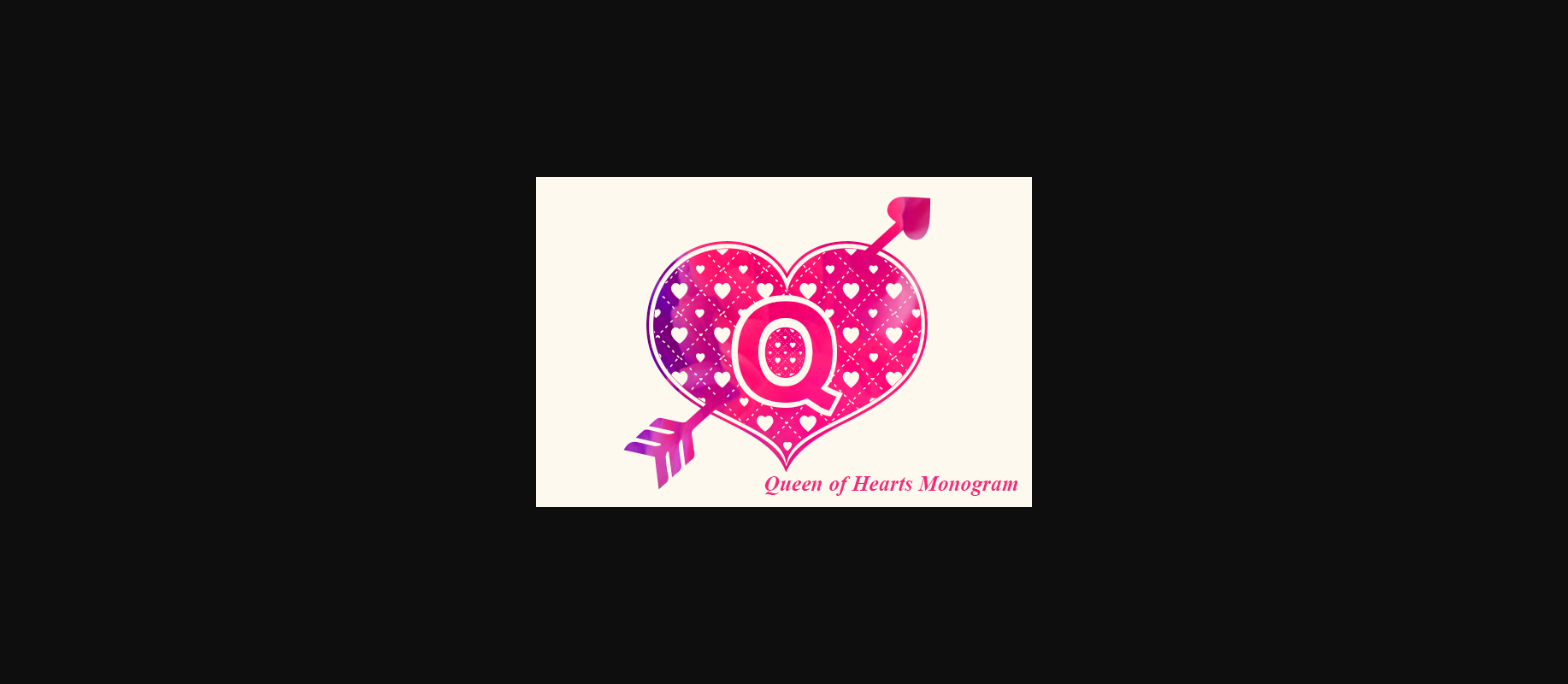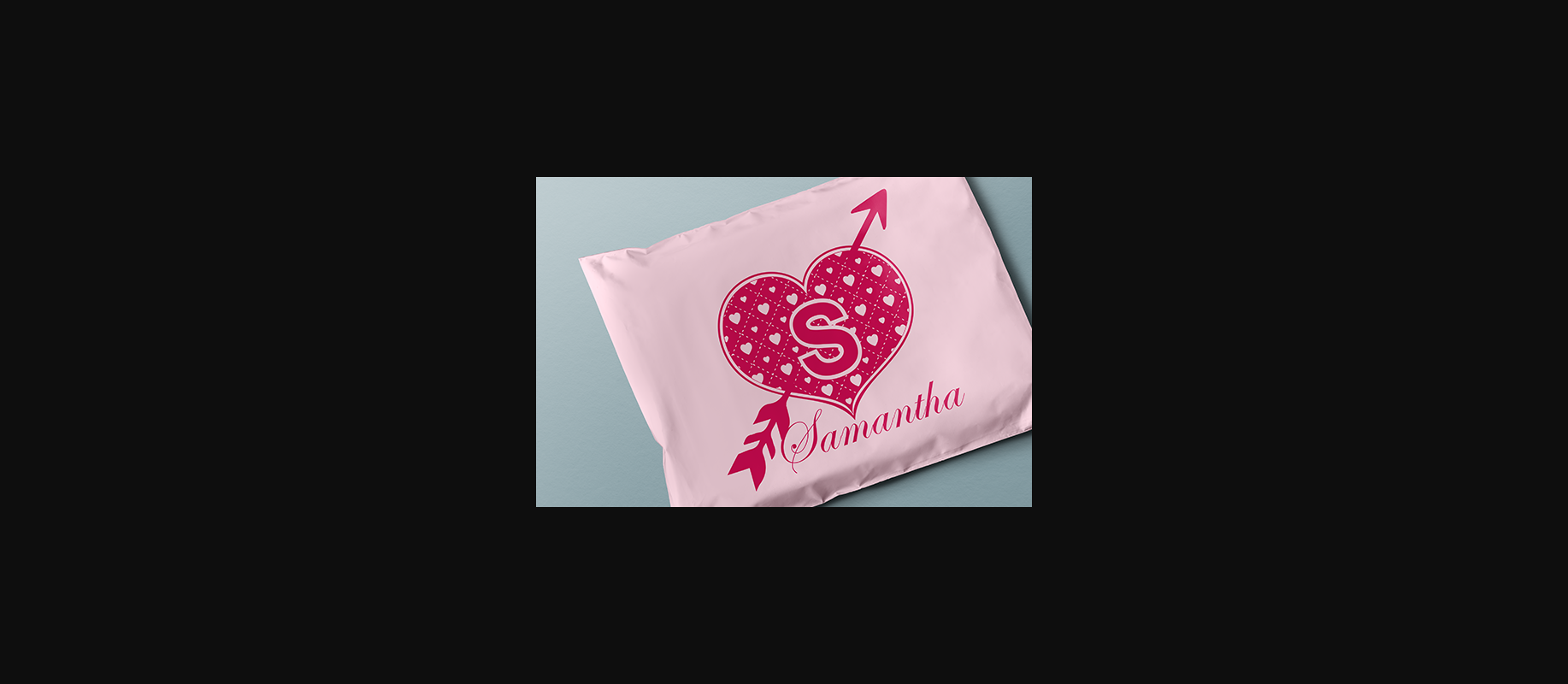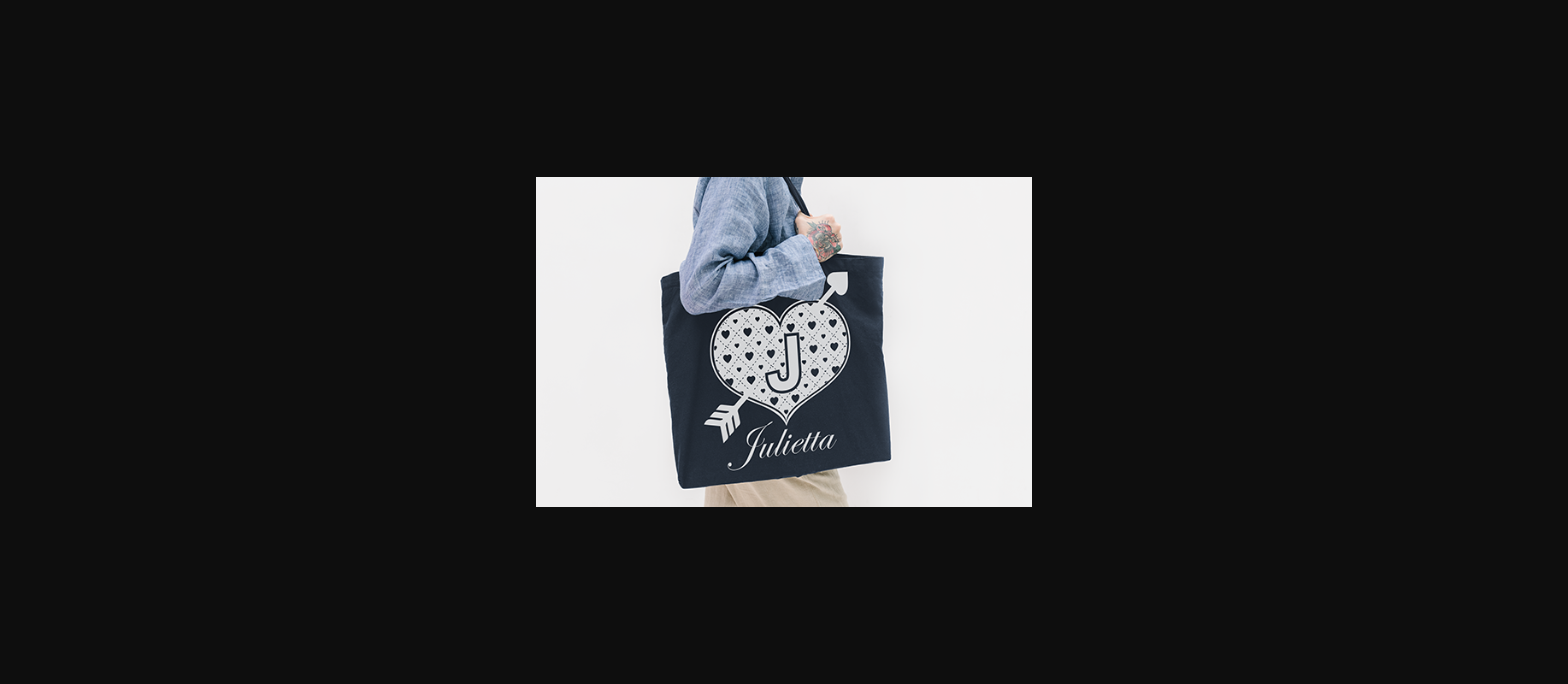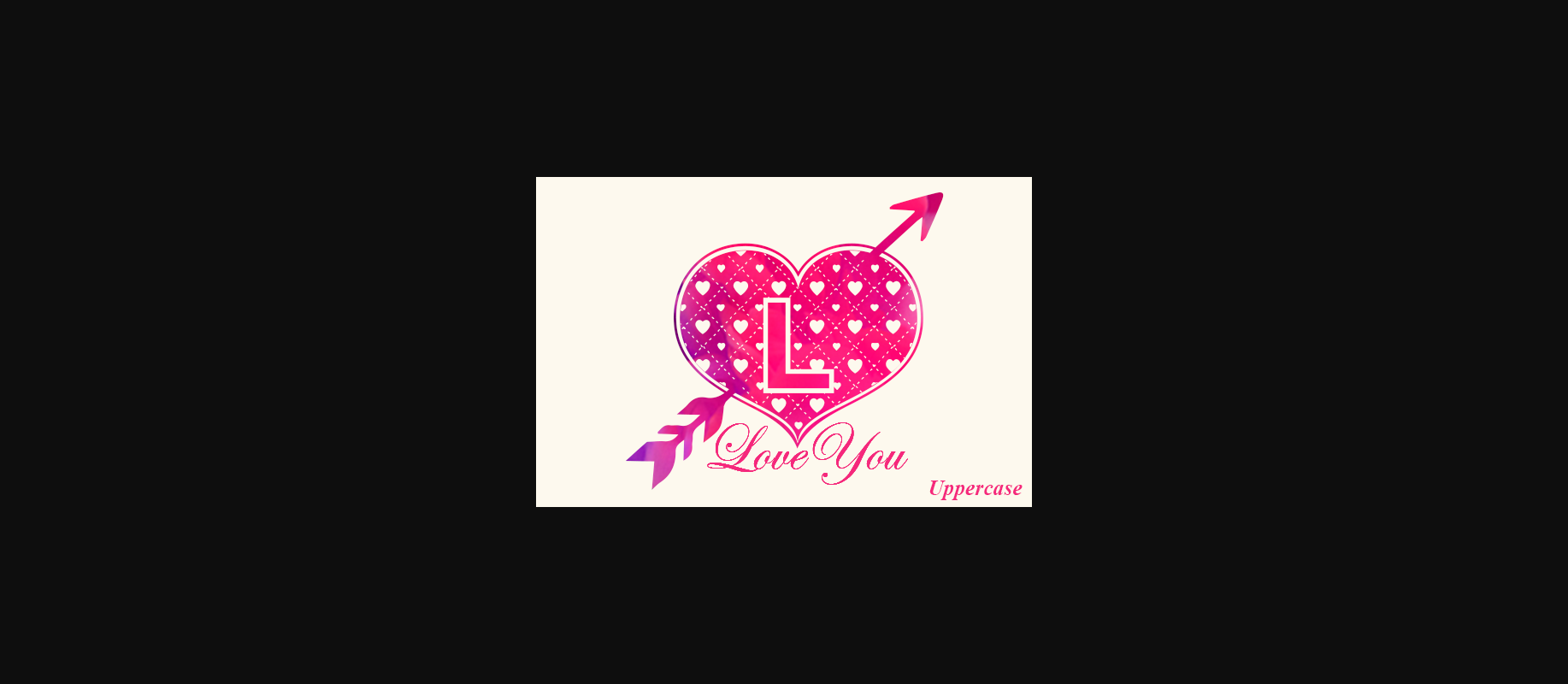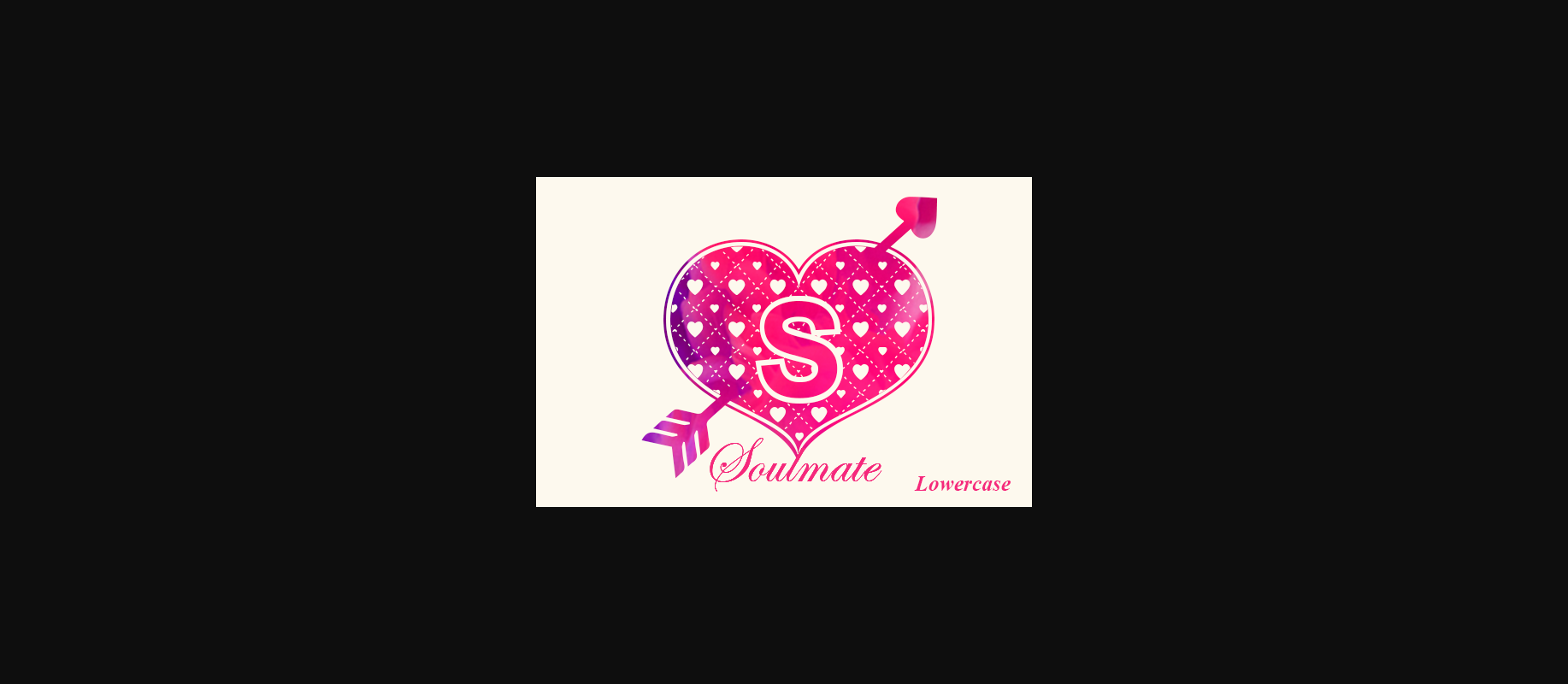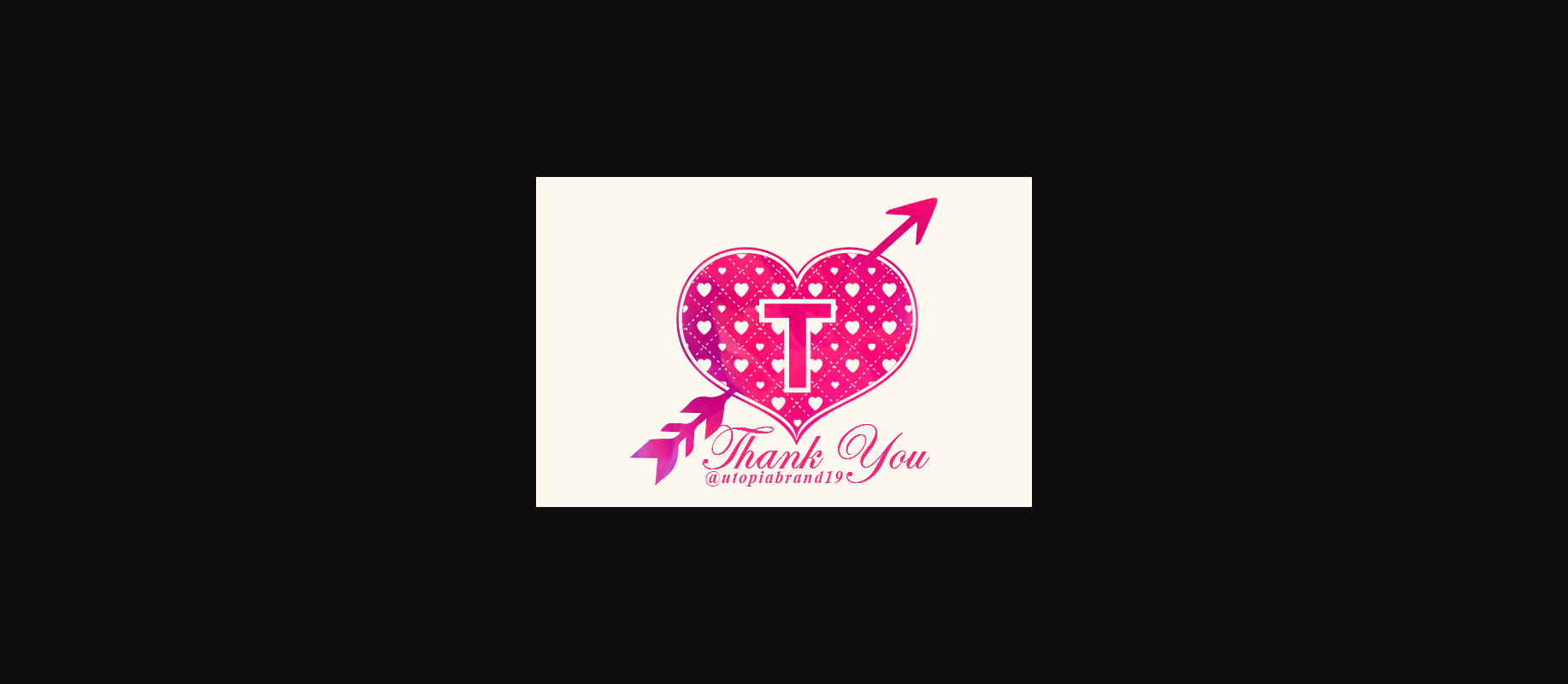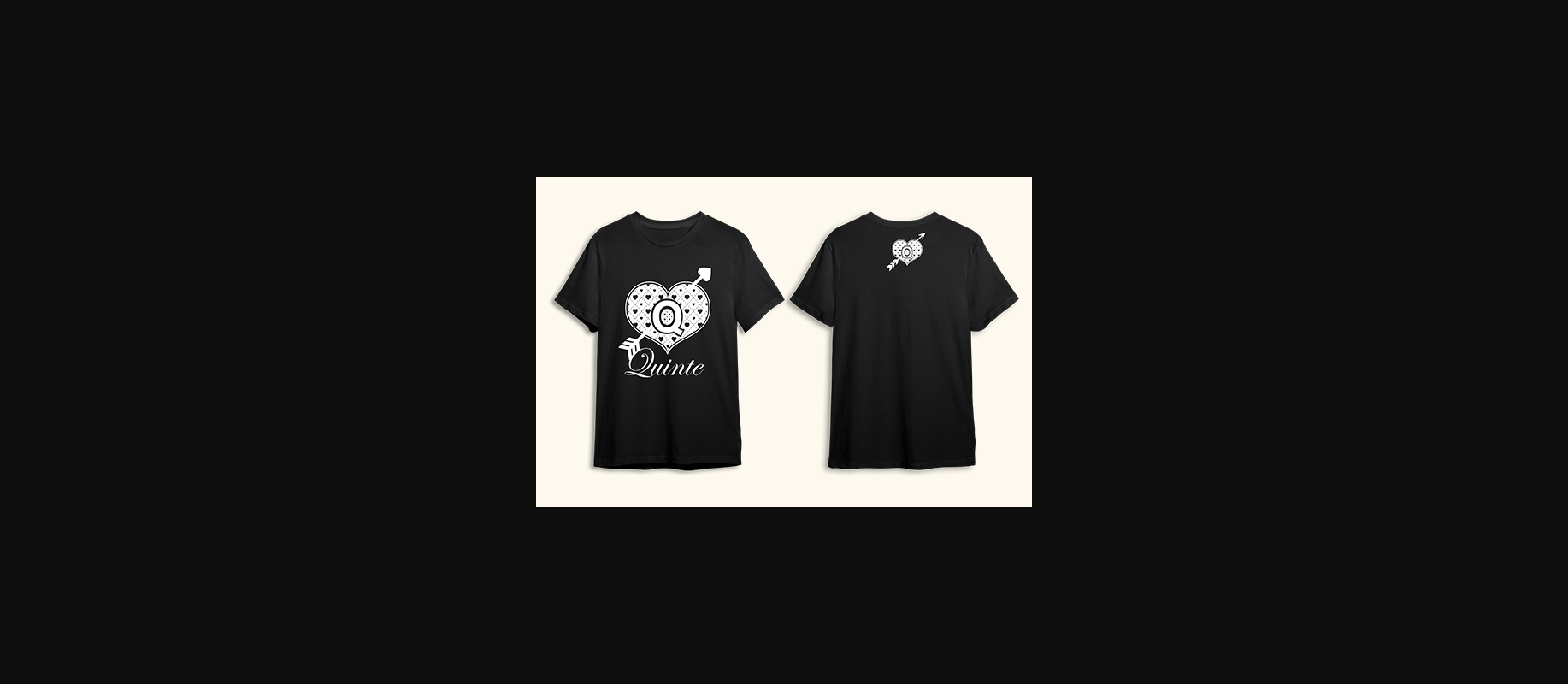
Queen of Hearts Font
About Queen of Hearts Font
Queen of Hearts Monogram is an elegant decorative font, featuring lovely ornaments. Fall in love with its authentic feel and use it to create gorgeous wedding invitations, beautiful stationary art, eye-catching social media posts, and cute greeting cards.